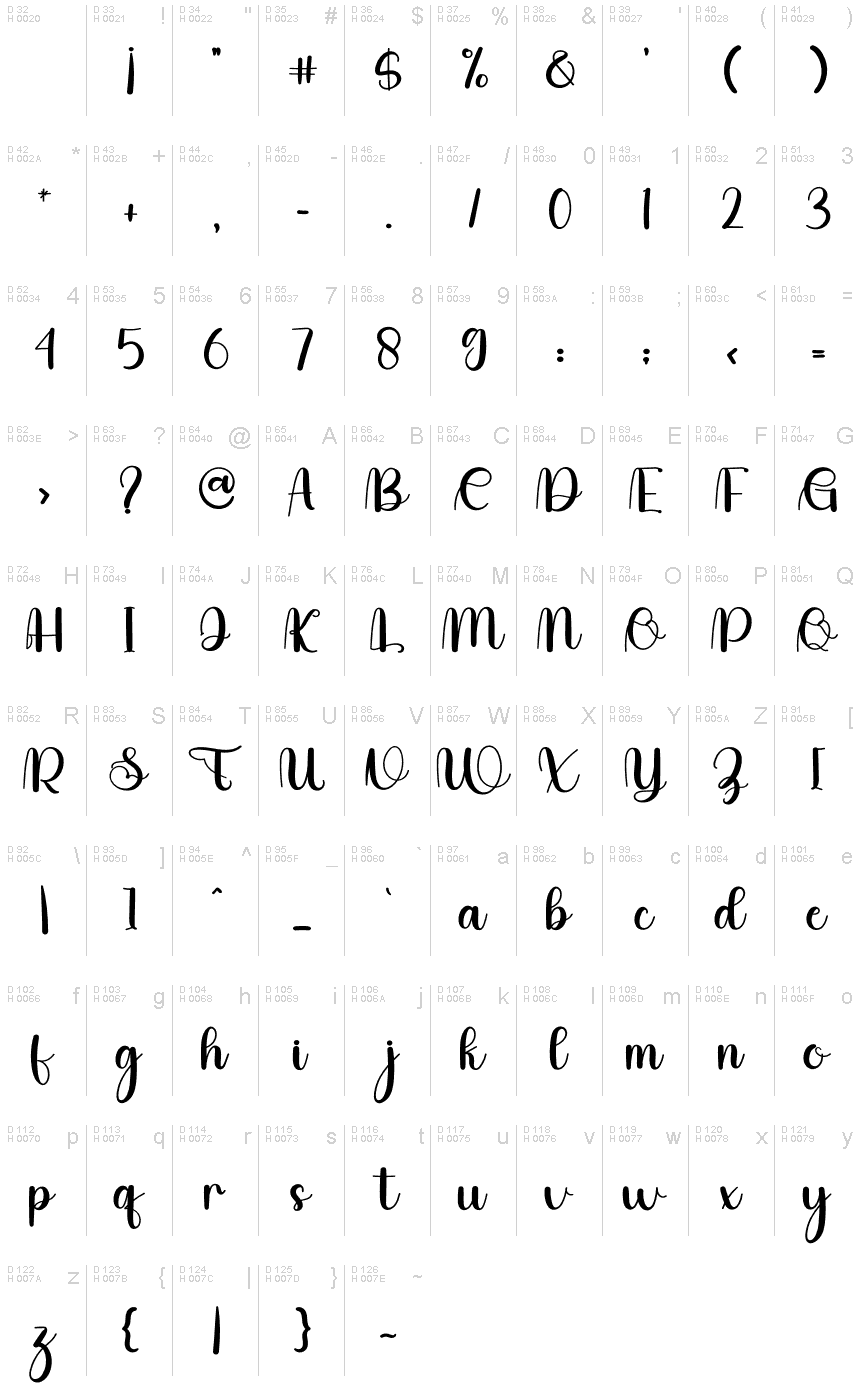
Selling
Selling, a handwritten font crafted by FreshtypeINK, brings an authentic touch of elegance and personality to any design. Its flowing, cursive letters are beautifully connected, exuding a sense of sophistication while maintaining an approachable charm. The deliberate irregularities in stroke width and the slight slant of the characters mimic natural handwriting, making Selling particularly engaging for personal branding, wedding invitations, and bespoke product packaging.
This typeface's aesthetic appeal lies in its blend of classic calligraphy with modern flair – perfect for designers aiming to convey intimacy and craftsmanship in their projects.